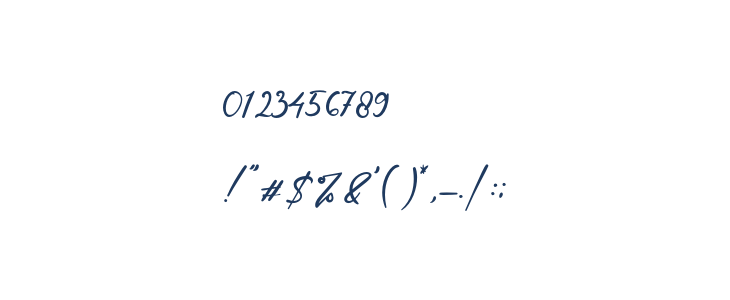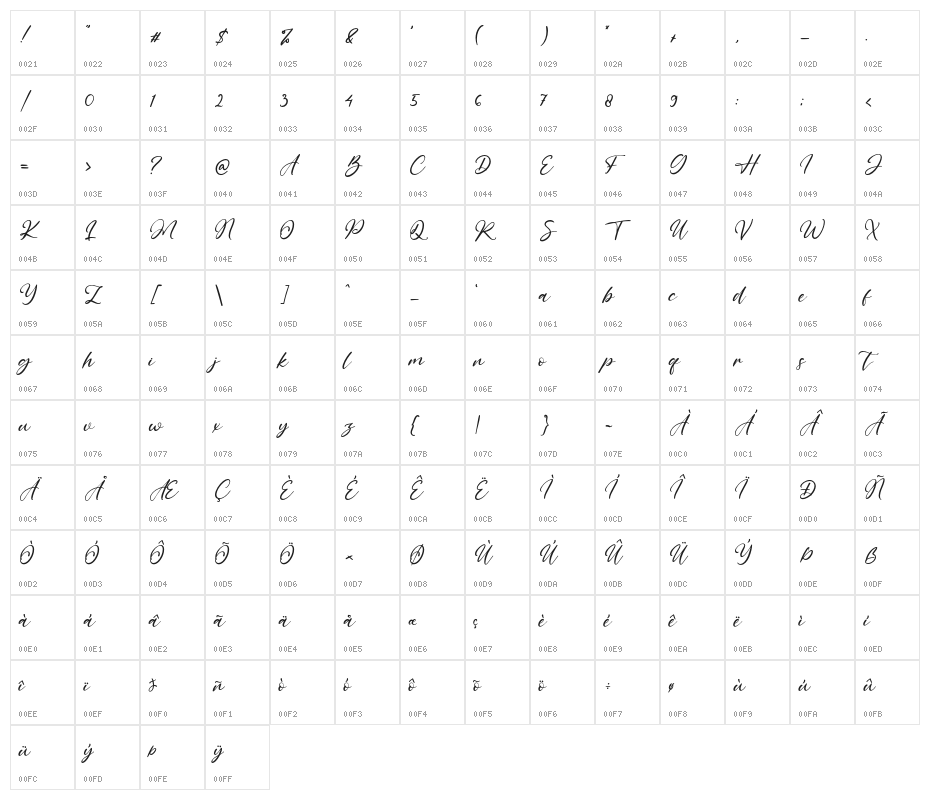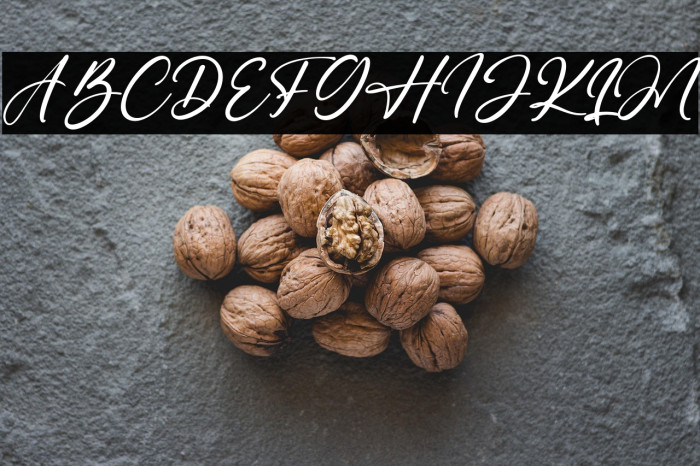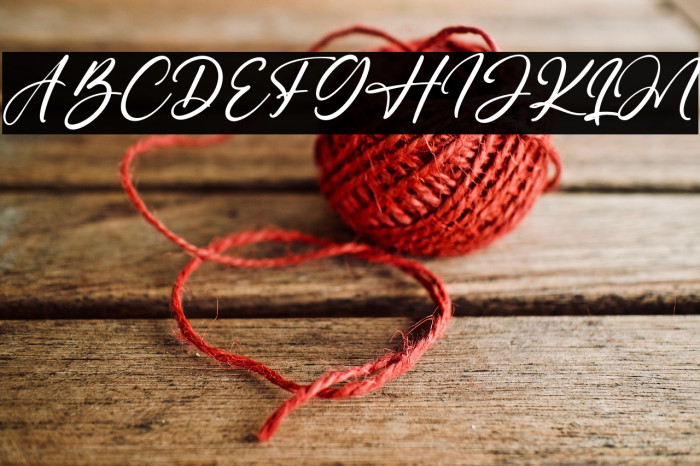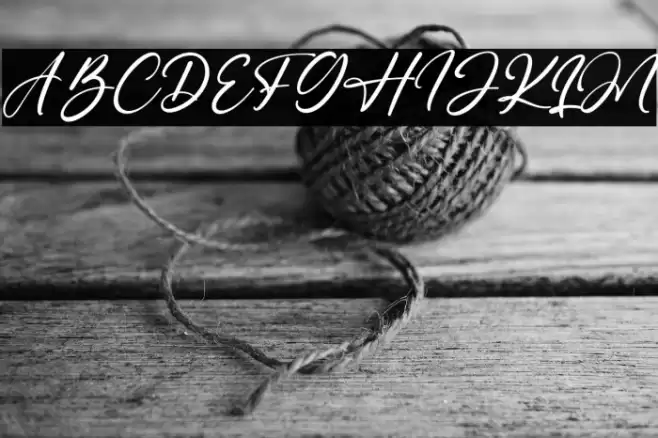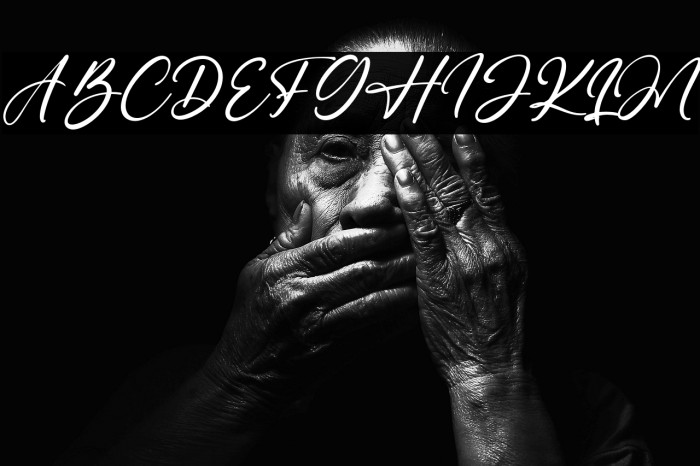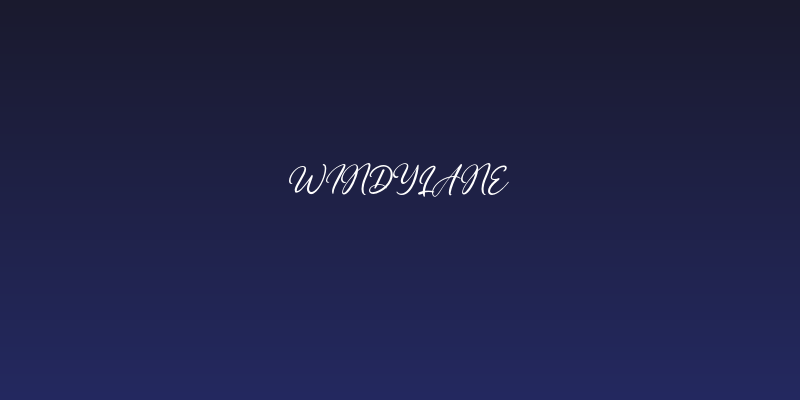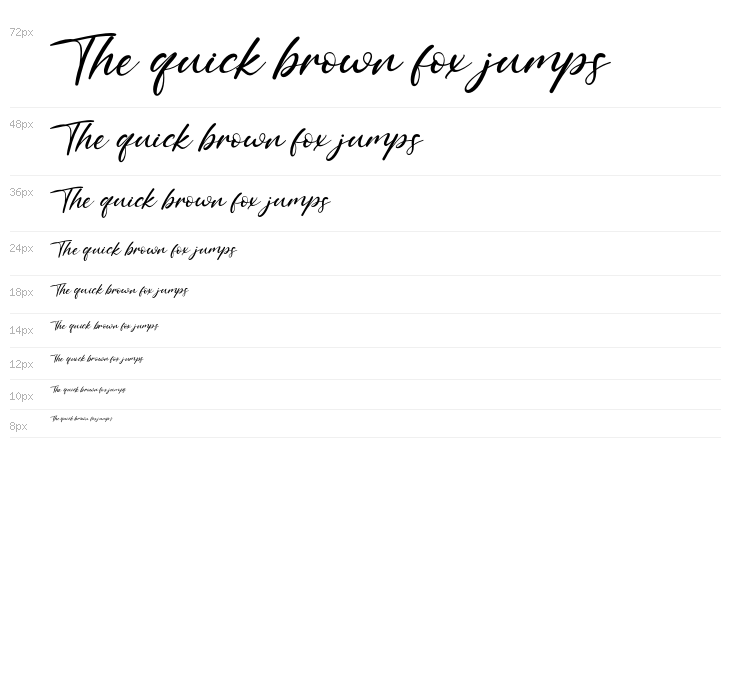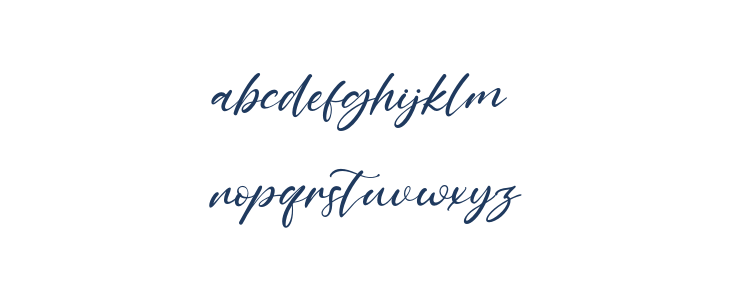
WindyLane Font
WindyLane Description
This elegant script font features fluid, cursive strokes that convey a sense of sophistication and grace. The letters are interconnected, creating a seamless flow that is both artistic and readable. The uppercase characters are slightly more elaborate, with flourishes that add a touch of flair, while the lowercase letters maintain a consistent rhythm. The numerals and special characters are designed to complement the overall style, ensuring a cohesive look across all text. This font's delicate curves and smooth lines make it ideal for projects that require a personal, handwritten touch.